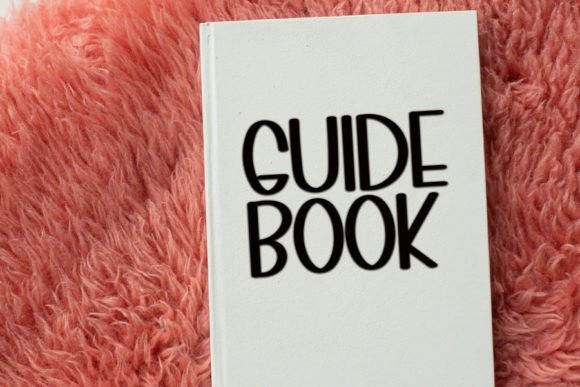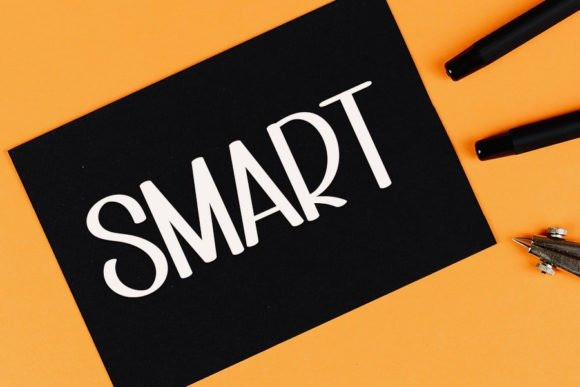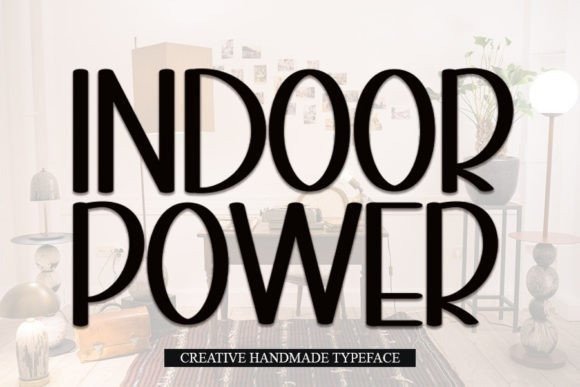
Indoor Power Font
Indoor Power Font is a beautiful display font. Grab this lovely typeface and create flyers, wedding invitations, cards, logos, banners, birthday cards, and thumbnails.